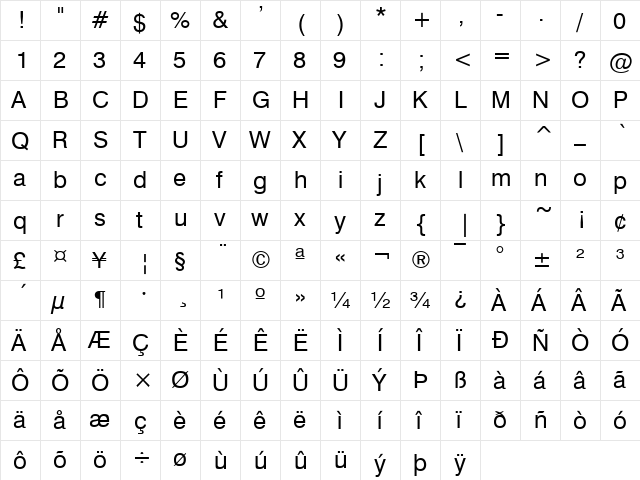
Design Context for MicroLogic Symbols Typeface
MicroLogic Symbols takes a measured approach to typography — its balanced proportions and neutral character make it a reliable workhorse for both digital and print work.
Pro Tip: Use MicroLogic Symbols in both headline and body roles to test its range before committing to a single application.